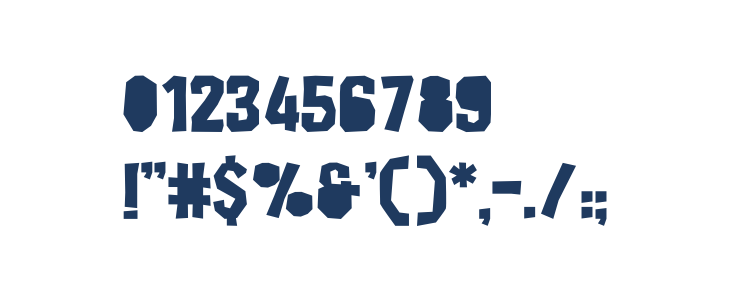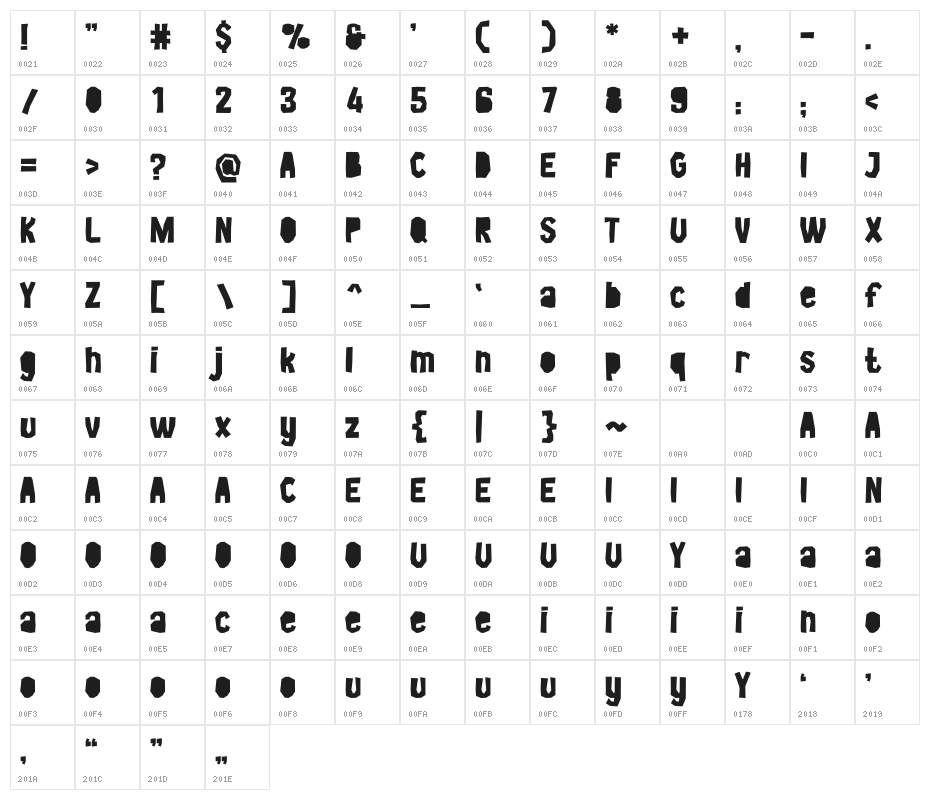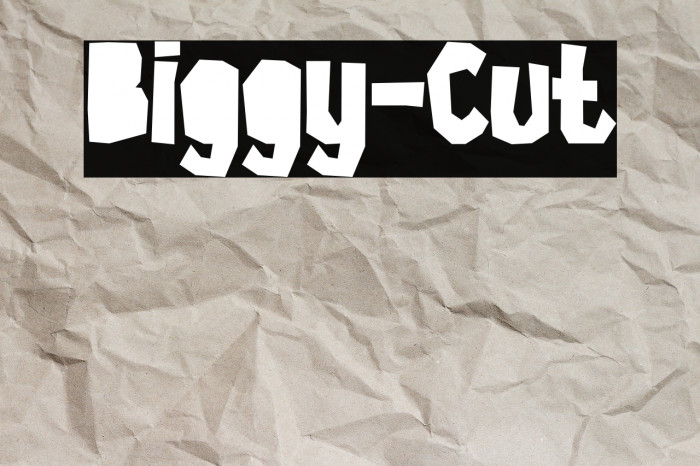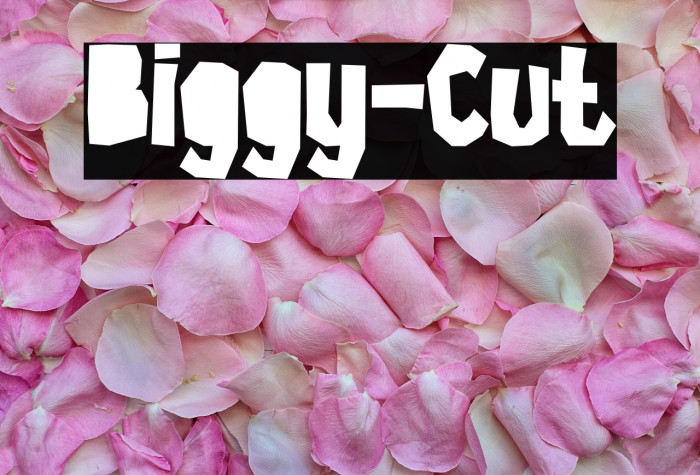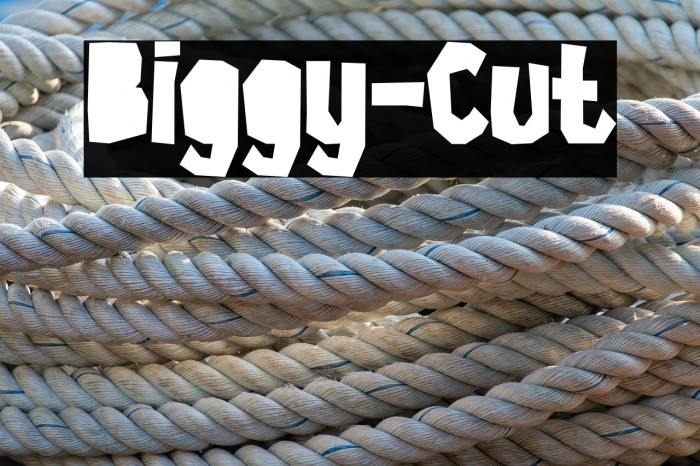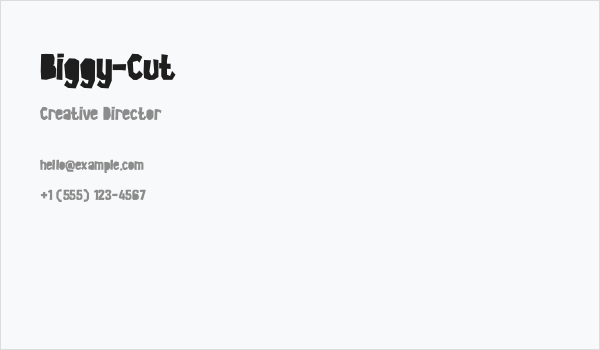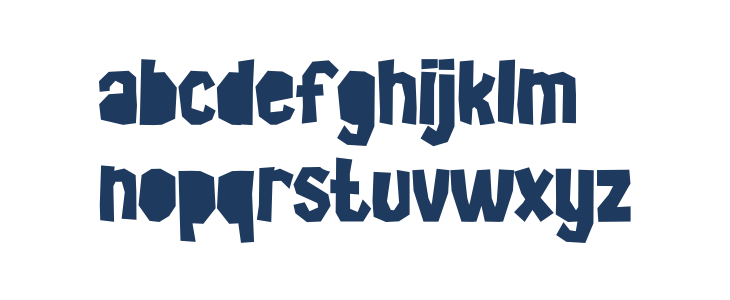
Biggy-Cut Font
Biggy-Cut Description
This font features a bold and playful design with irregular, jagged edges that give it a hand-cut, collage-like appearance. The characters are chunky and uneven, creating a sense of movement and energy. The uppercase and lowercase letters maintain a consistent style, with exaggerated angles and a slightly rough texture. Numbers and special characters follow the same aesthetic, ensuring a cohesive look across all glyphs. The font's unique style makes it stand out, ideal for projects that require a bold and artistic touch.
| Proposed Projects | Perfect for posters, album covers, children's books, and creative branding projects. |